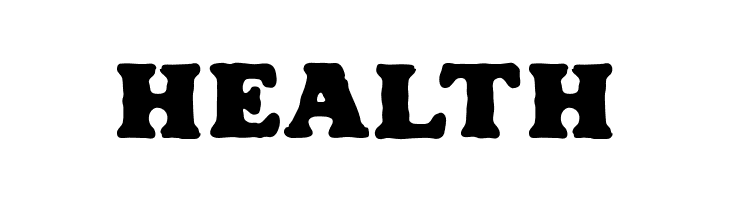
A bold, rough-textured serif font with a vintage, handcrafted feel.
A bold, textured font with a distressed, vintage look.
Bold slab serif with a vintage, athletic style.